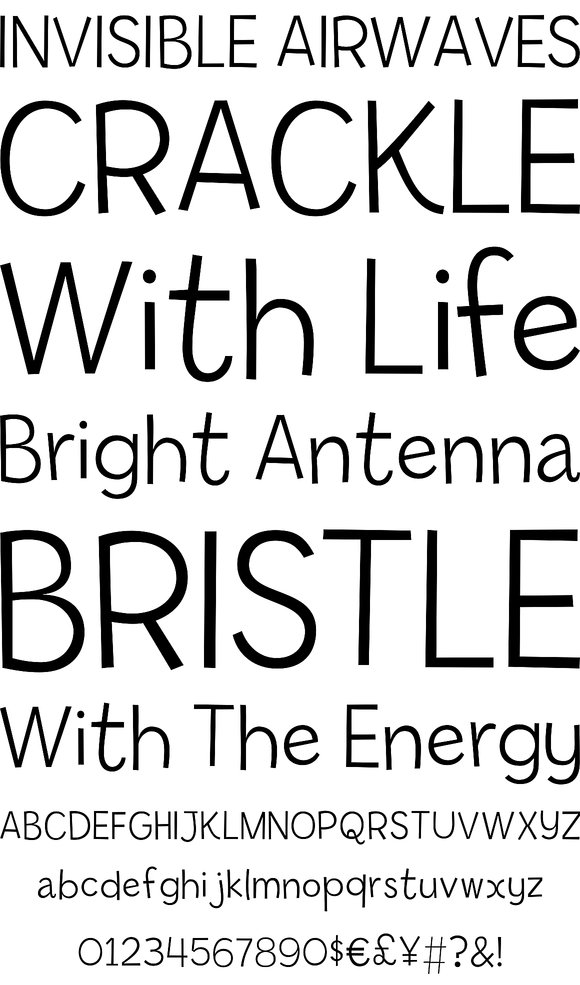
Billy Sans
Foundry: Sparky Type
The Billy family contains three individually useful and fun fonts. When combined, the energy and strengths of the different weights play off each other creating an essential family.